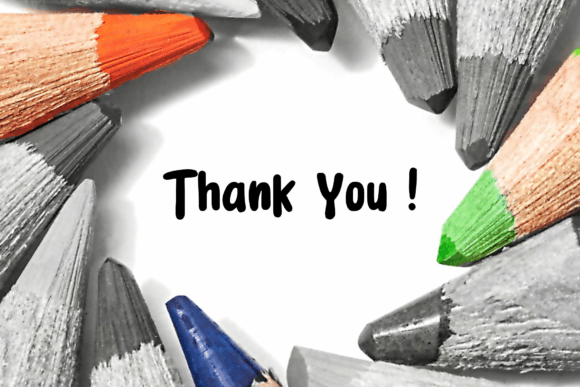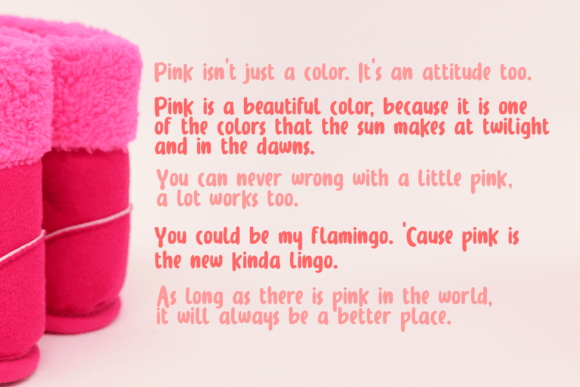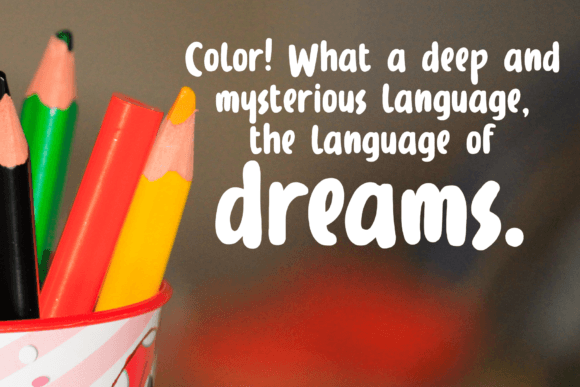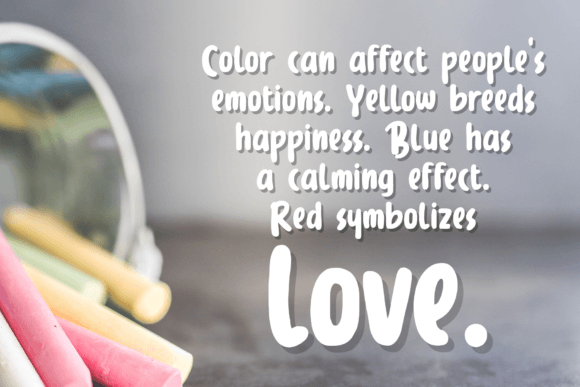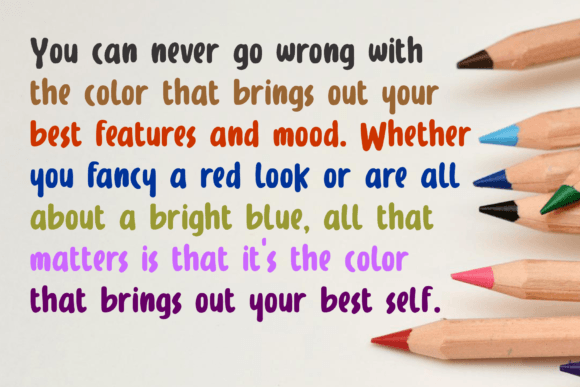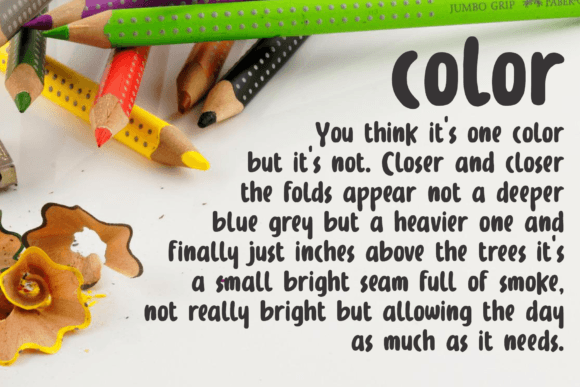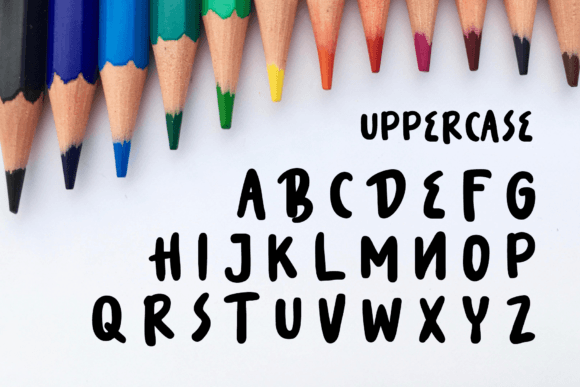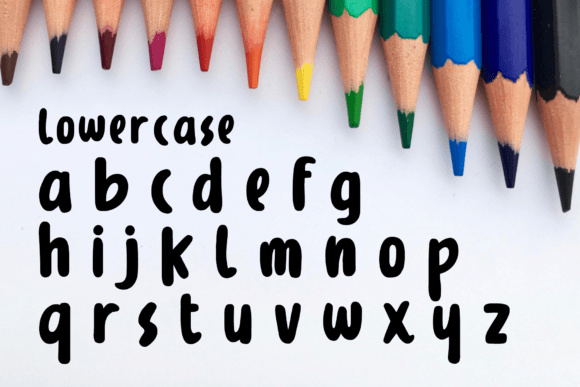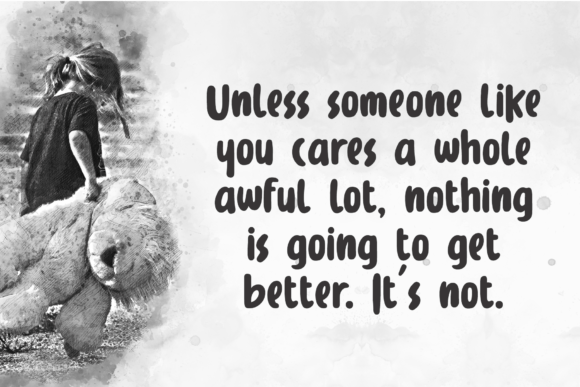
Sonata Font
Introducing Sonata, a sweet and soft hand-brushed font that adds a delightful touch to your creations. Sonata is a wonderful asset to your font library, possessing the potential to enhance a wide range of projects. This playful sans-serif font features a bold and cute style, making it versatile for various applications.
Sonata’s charm is evident in its soft and sweet hand-brushed strokes, making it ideal for diverse projects. Whether you’re working on logo design, mug decorations, pottery, shirts, hats, tote bags, card making, wall art, interior prints, comic text, book covers for children, social media posts, T-shirt quotes, stationary, or a handwriting comic style, Sonata brings a playful and captivating aesthetic.
The bold and cute style of Sonata makes it a perfect choice for projects that require a touch of whimsy and charm. Its versatility allows it to adapt seamlessly to different design contexts, bringing a unique and delightful element to each application.
In summary, Sonata is more than just a font; it’s a creative tool that adds a sweet and soft touch to your projects. Download Sonata now and explore its potential to elevate your designs with a playful and cute sans-serif style. Whether you’re working on branding, merchandise, or creative compositions, Sonata brings a delightful and charming quality that makes it stand out in various applications.